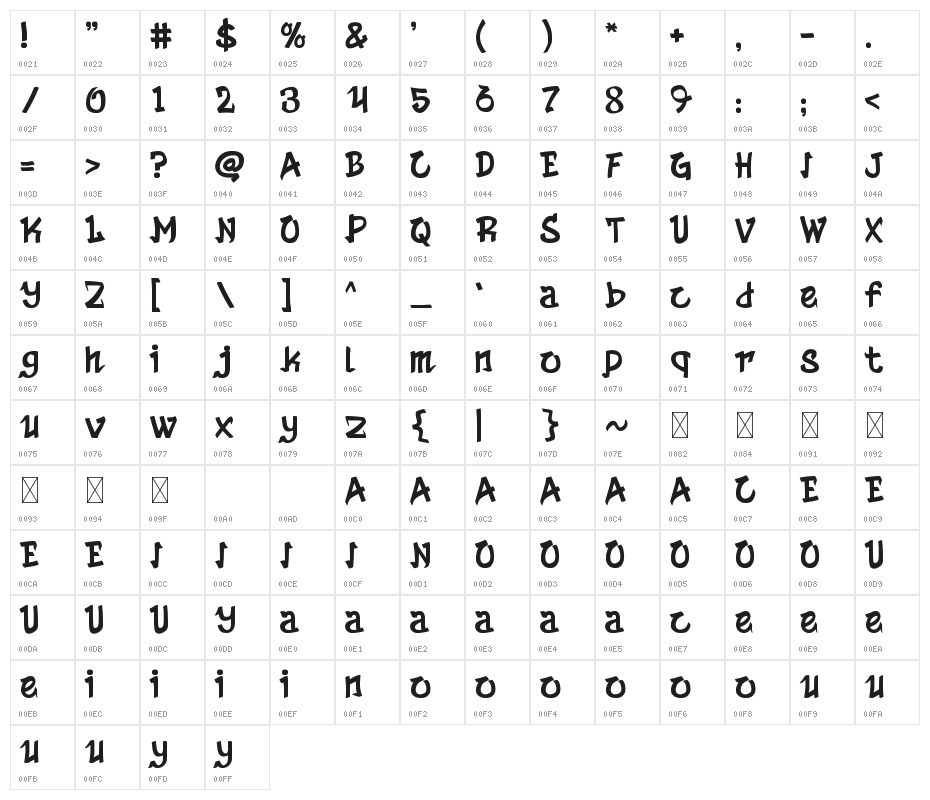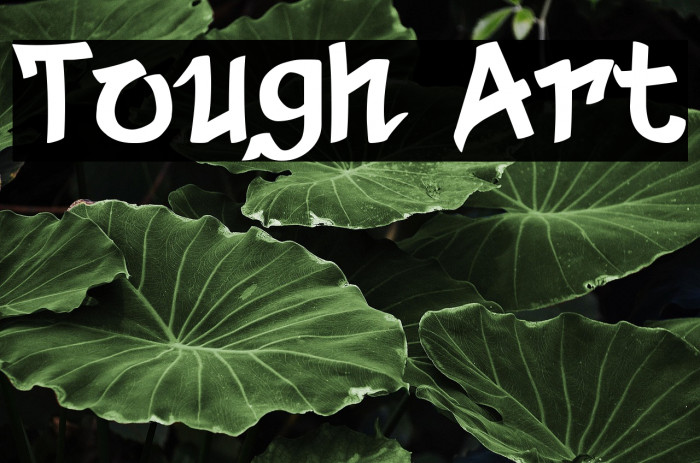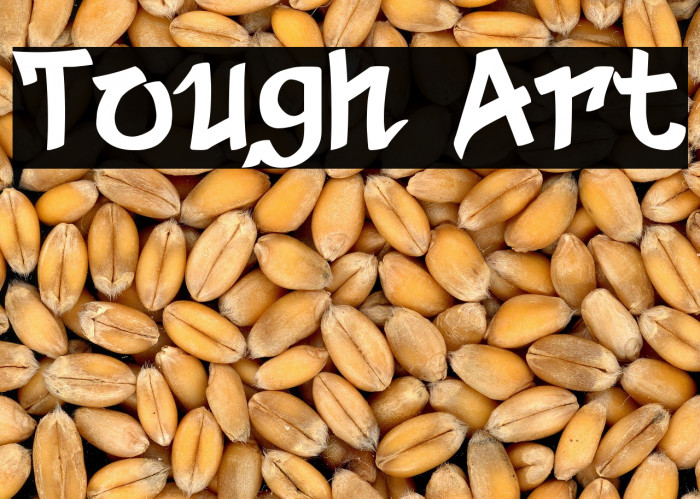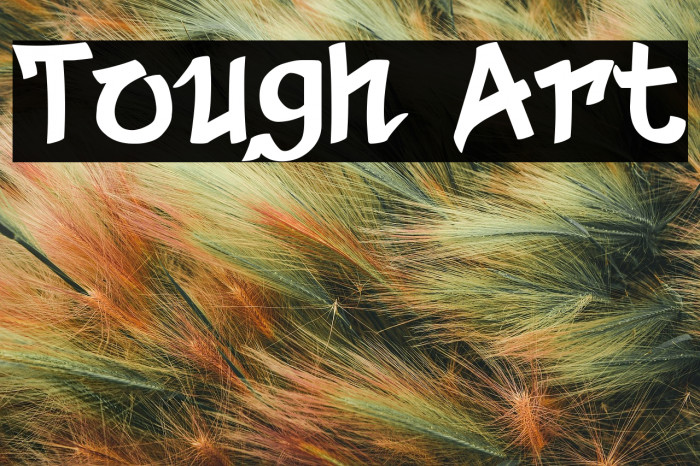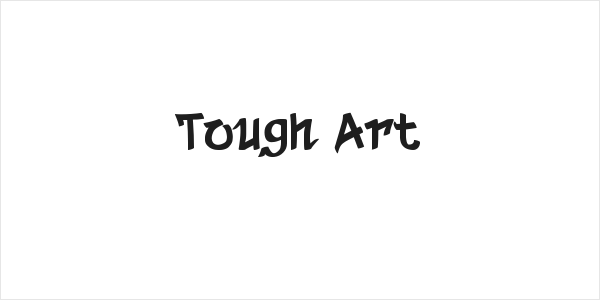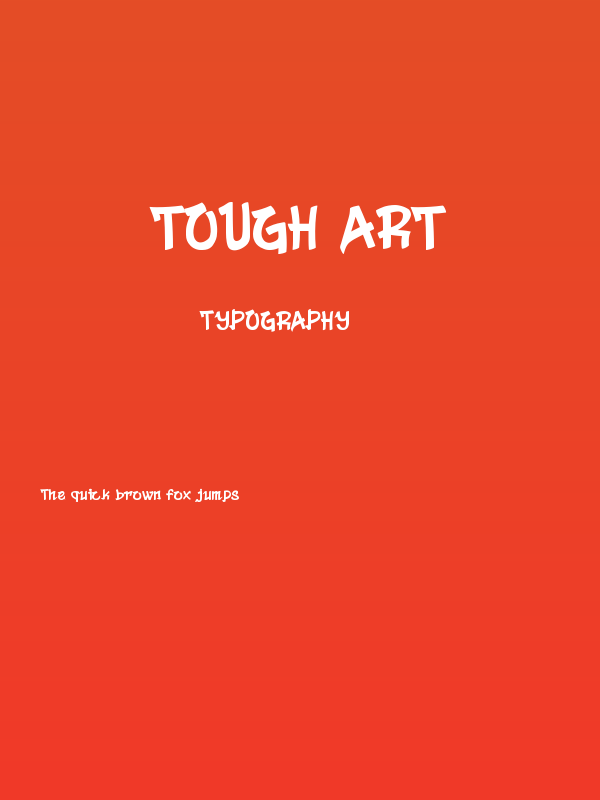
Tough Art Font
Tough Art Description
This font features a bold and dynamic style with a hand-drawn appearance, characterized by its irregular and playful letterforms. The uppercase and lowercase letters exhibit a sense of movement and energy, with varying stroke widths that add to its expressive nature. The numerals and special characters maintain this lively aesthetic, making it suitable for creative and informal applications. The overall design is reminiscent of graffiti or street art, providing a sense of urban flair and artistic expression.
| Proposed Projects | Ideal for street art-inspired designs, posters, album covers, and creative branding projects. |